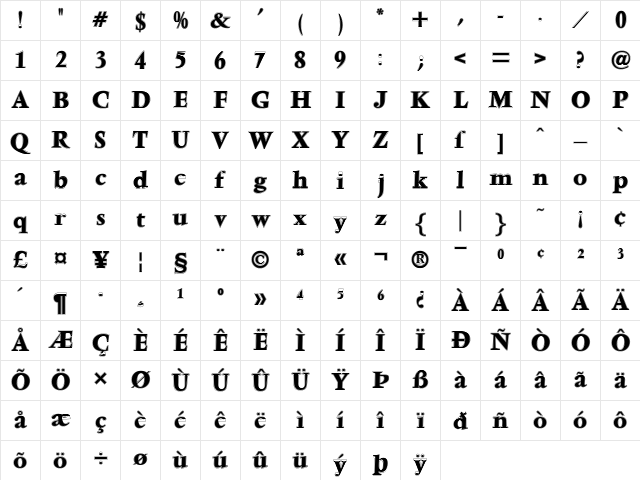
VenturaInline-Bold Regular
Design Context for VenturaInline-Bold
VenturaInline-Bold is built around its visual character rather than neutral utility - its distinctive forms are designed to make an impression at display sizes. Its bold stroke weight gives it real presence on the page.
Font Pairing: Pair with a clean neutral sans-serif for body copy to let VenturaInline-Bold's character lead without overwhelming the composition.
Pro Tip: Use VenturaInline-Bold exclusively at display sizes - it was designed to be seen, not read at length. Let a neutral companion handle body copy.